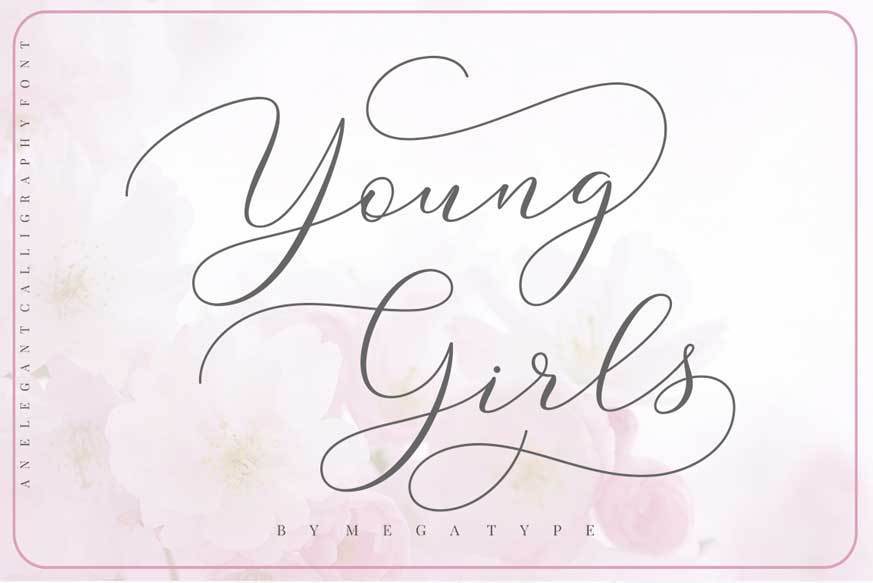
Young Girls Script Font
Young Girls is a sweet calligraphy font. It’s casual, pretty and contains lots of beautiful swashes.
It can be used for various purposes such as logos, product packaging, wedding invitations, branding, headlines, signages, and more.